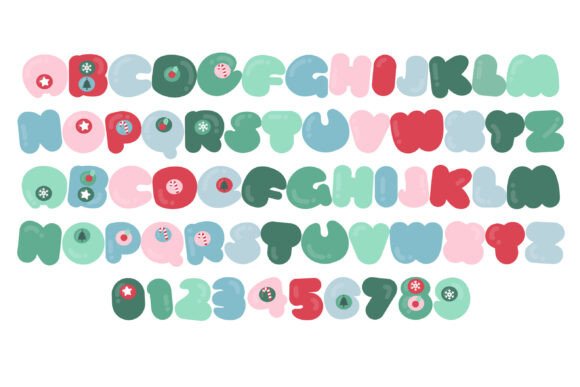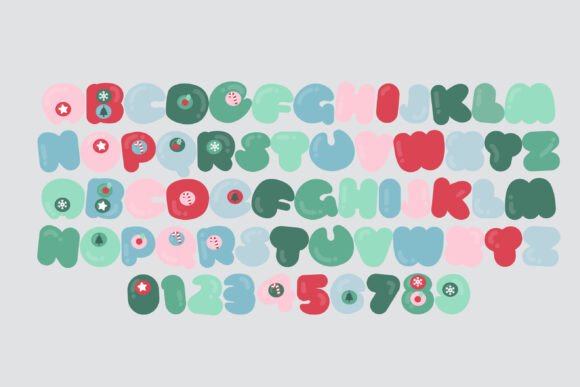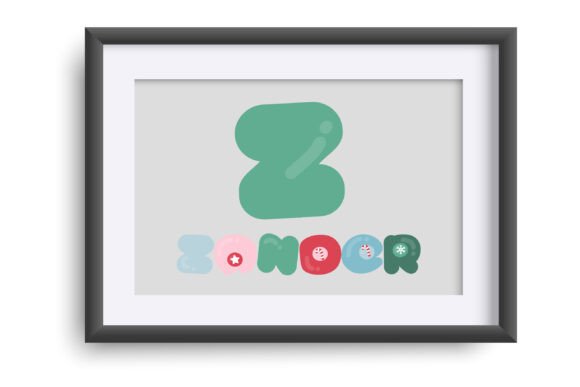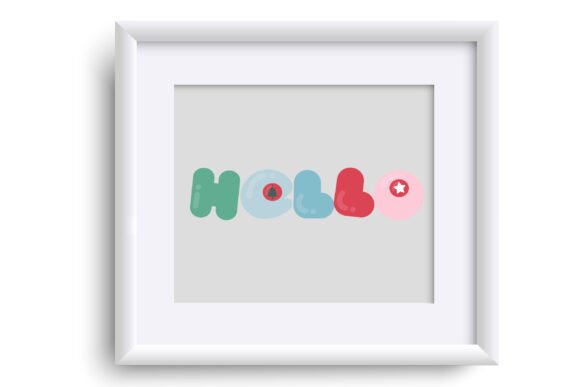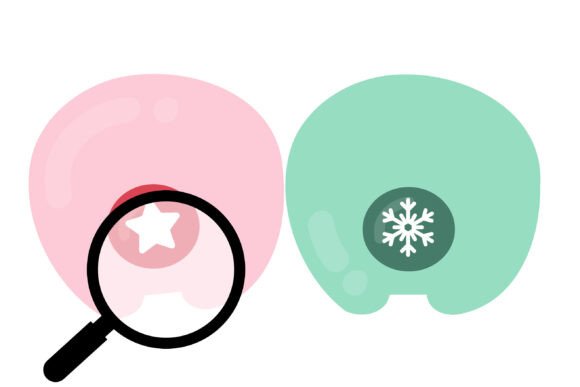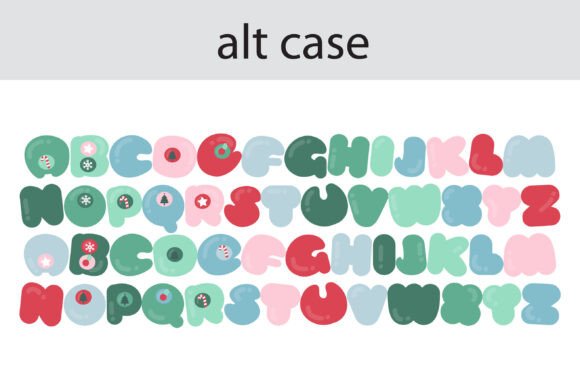
The Magic of Decoration Dot Font: A Designer’s Delight
I still remember the time I was working on a Christmas project for a client, and I was struggling to find the perfect font to match the festive theme. The client wanted something fun, playful, and eye-catching, but I just couldn’t seem to find the right fit. That’s when I stumbled upon the Decoration Dot Font, and it was love at first sight! ✨
This full-color font features a chunky sans serif with Christmas ornaments throughout, making it perfect for titles, displays, posters, and more. In this article, I’ll share my honest review of the Decoration Dot Font, provide a practical guide on how to use it, and explore similar fonts and alternatives.
Honest Review
- 🎄 The festive and playful design of the font, perfect for Christmas and holiday-themed projects
- ✅ The chunky sans serif style is easy to read and adds a fun touch to any design
- 🌈 The full-color feature allows for a wide range of colors and creative possibilities
- 🔍 The alt version of the font, accessible through the system’s character map, offers additional colors for the letters
- ⚠️ The font may show as black in non-compatible programs, which can be a limitation
- 🤔 The font’s color features may not display properly in some programs, such as in the preview window
The Designer Inspiration Behind Decoration Dot Font
The Decoration Dot Font was designed with the intention of capturing the magic and wonder of the holiday season. The designer wanted to create a font that would add a touch of festivity and playfulness to any design. With its chunky sans serif style and full-color features, the Decoration Dot Font is sure to bring a smile to anyone’s face.
| Font Name | Decoration Dot Font |
| Author | Illustration Ink |